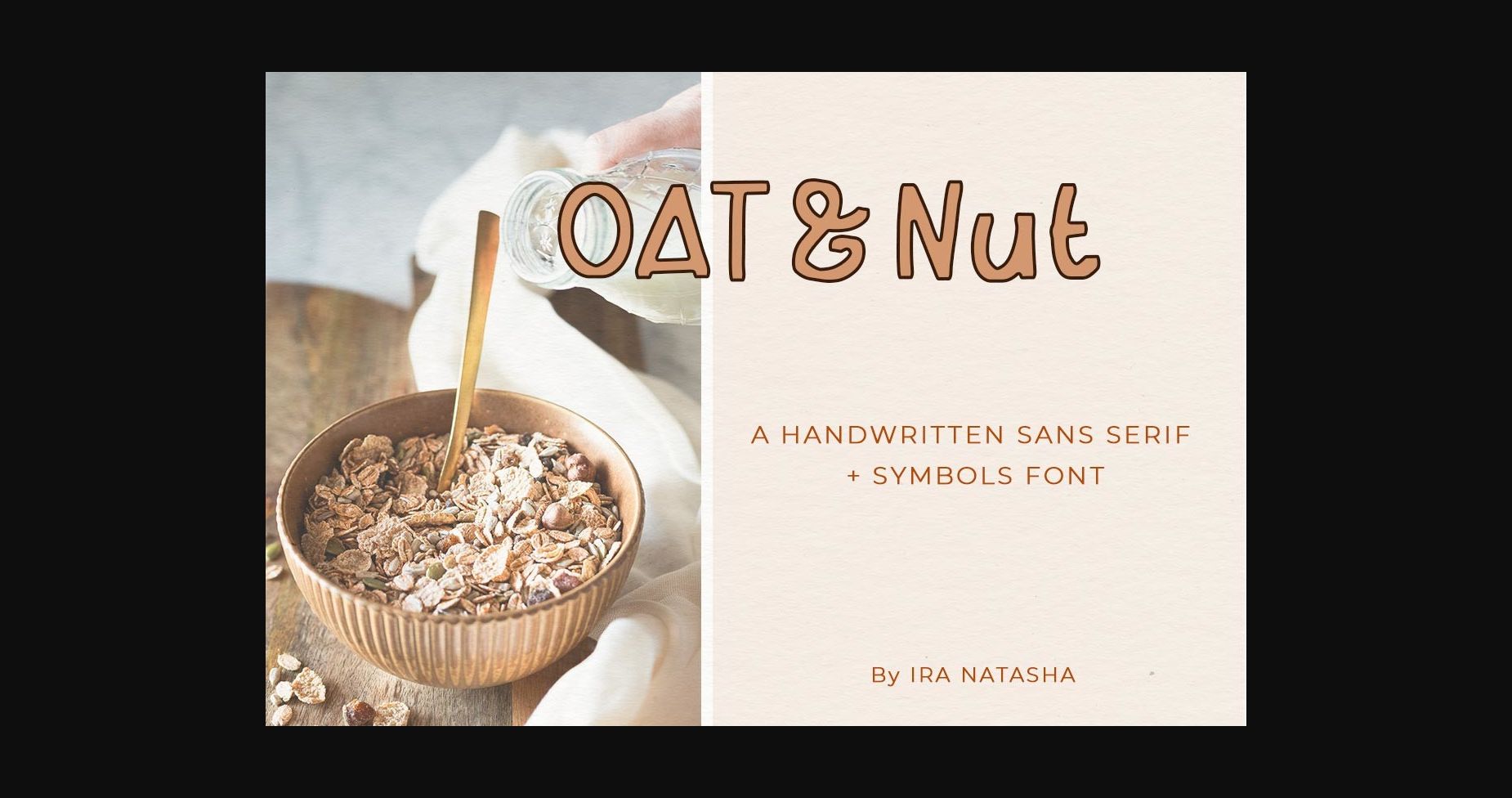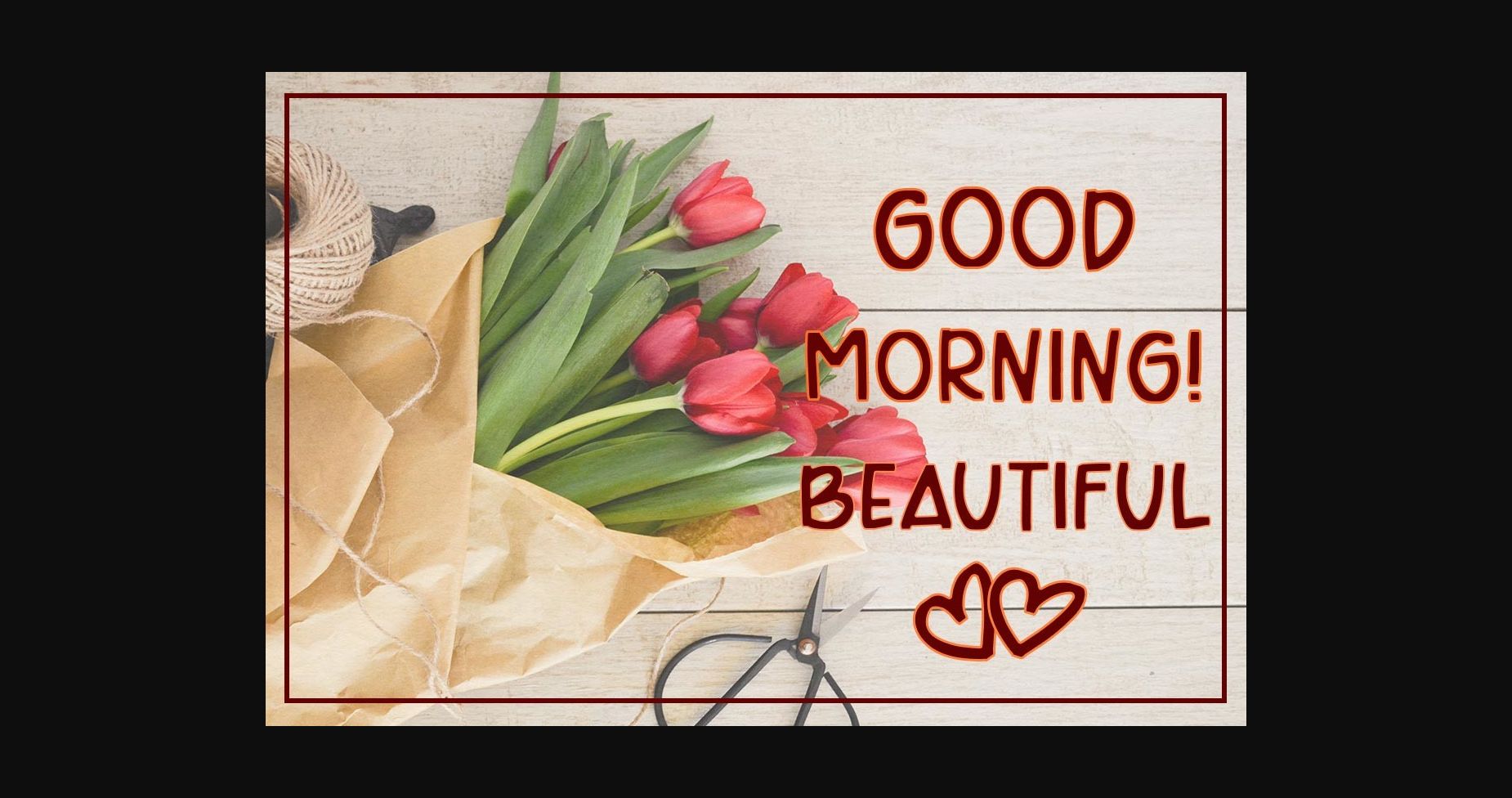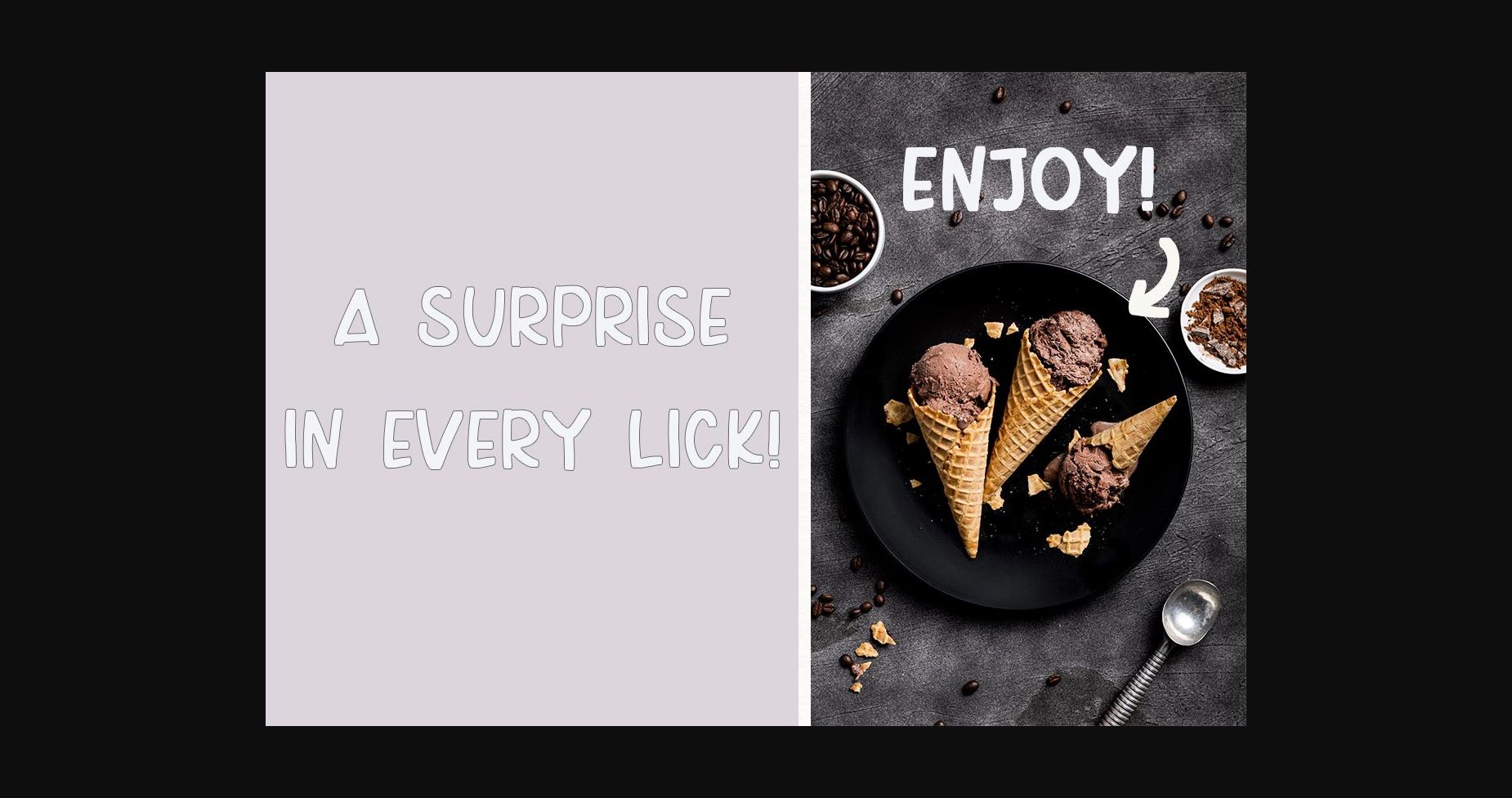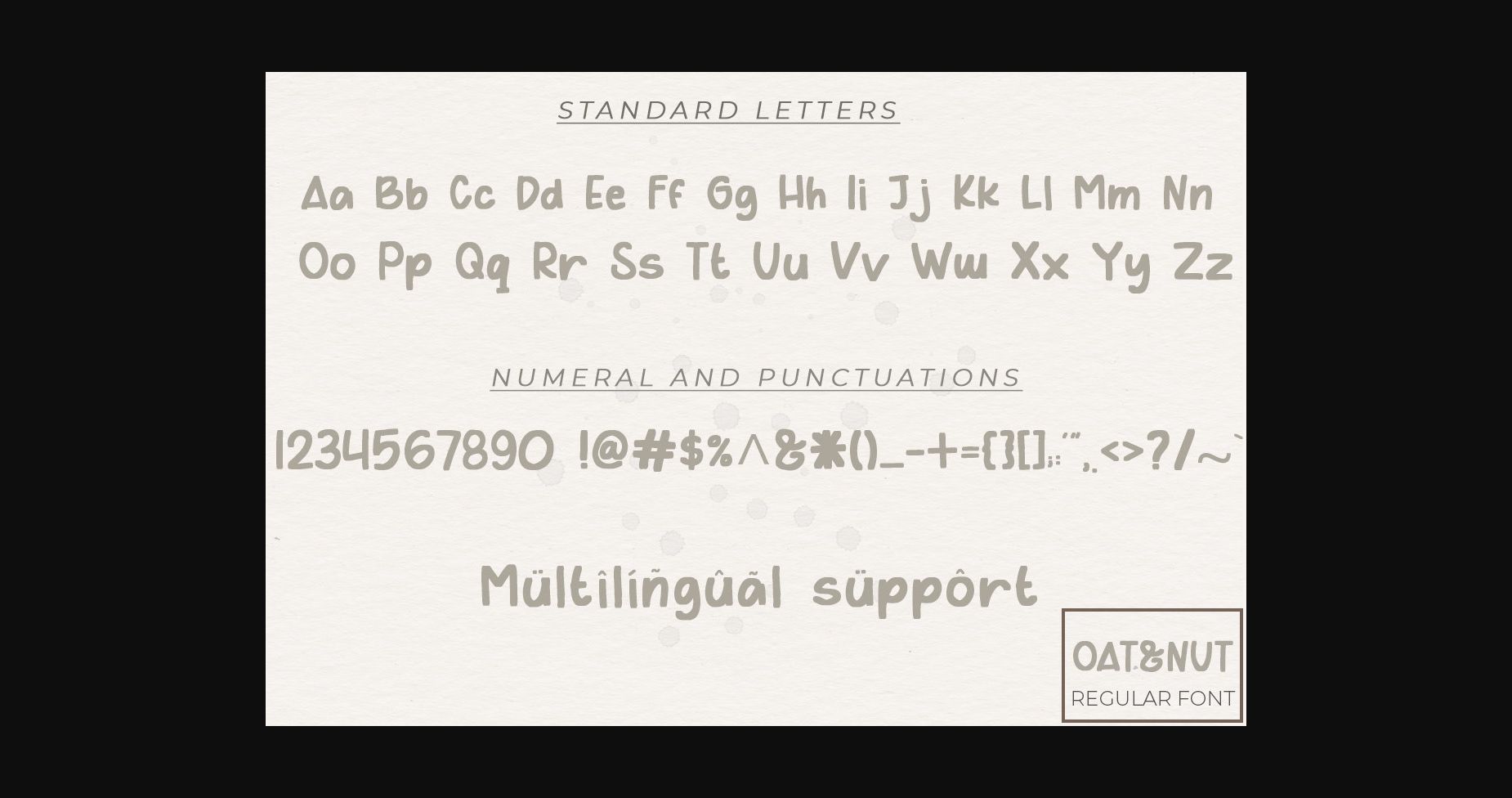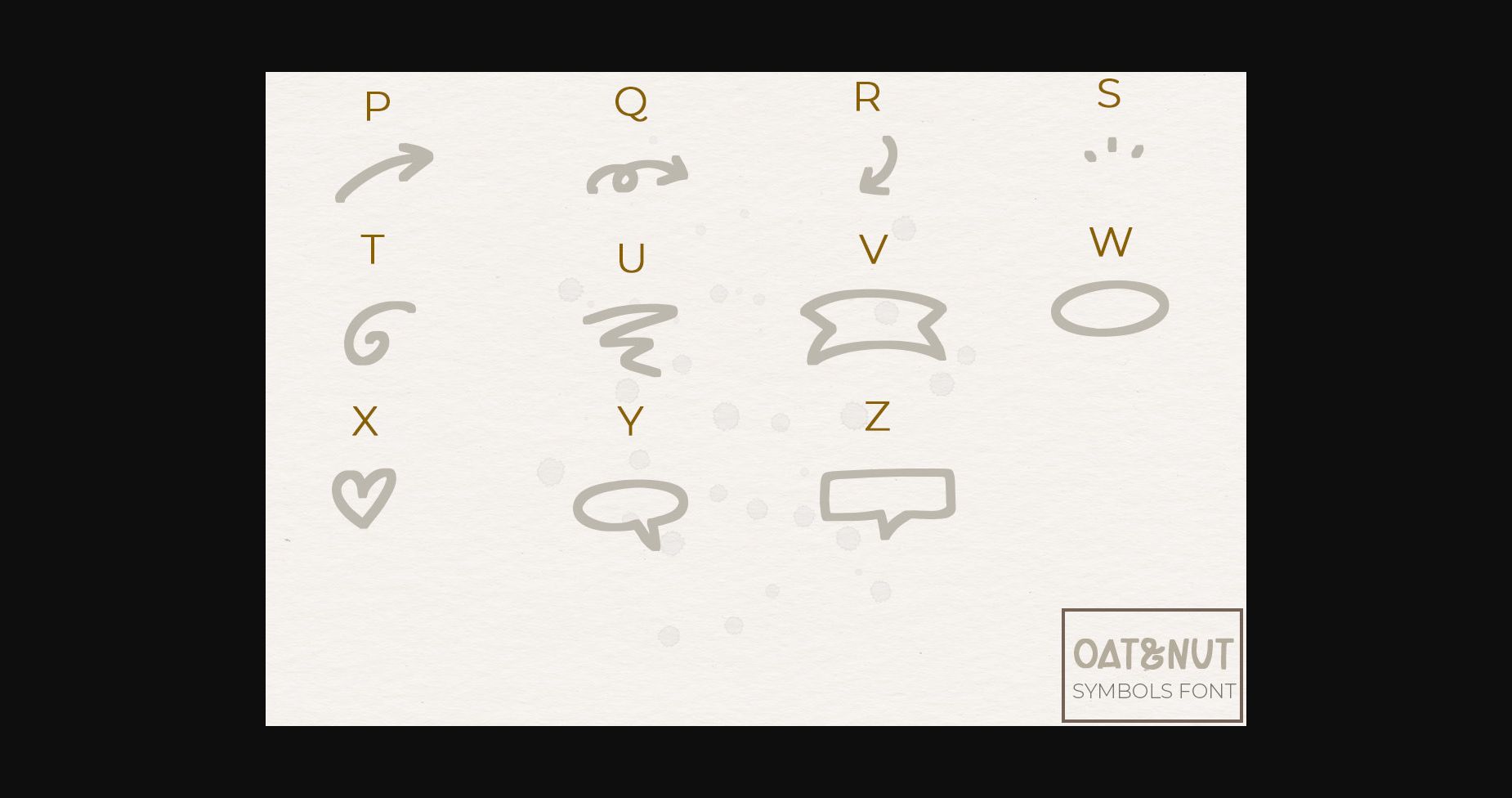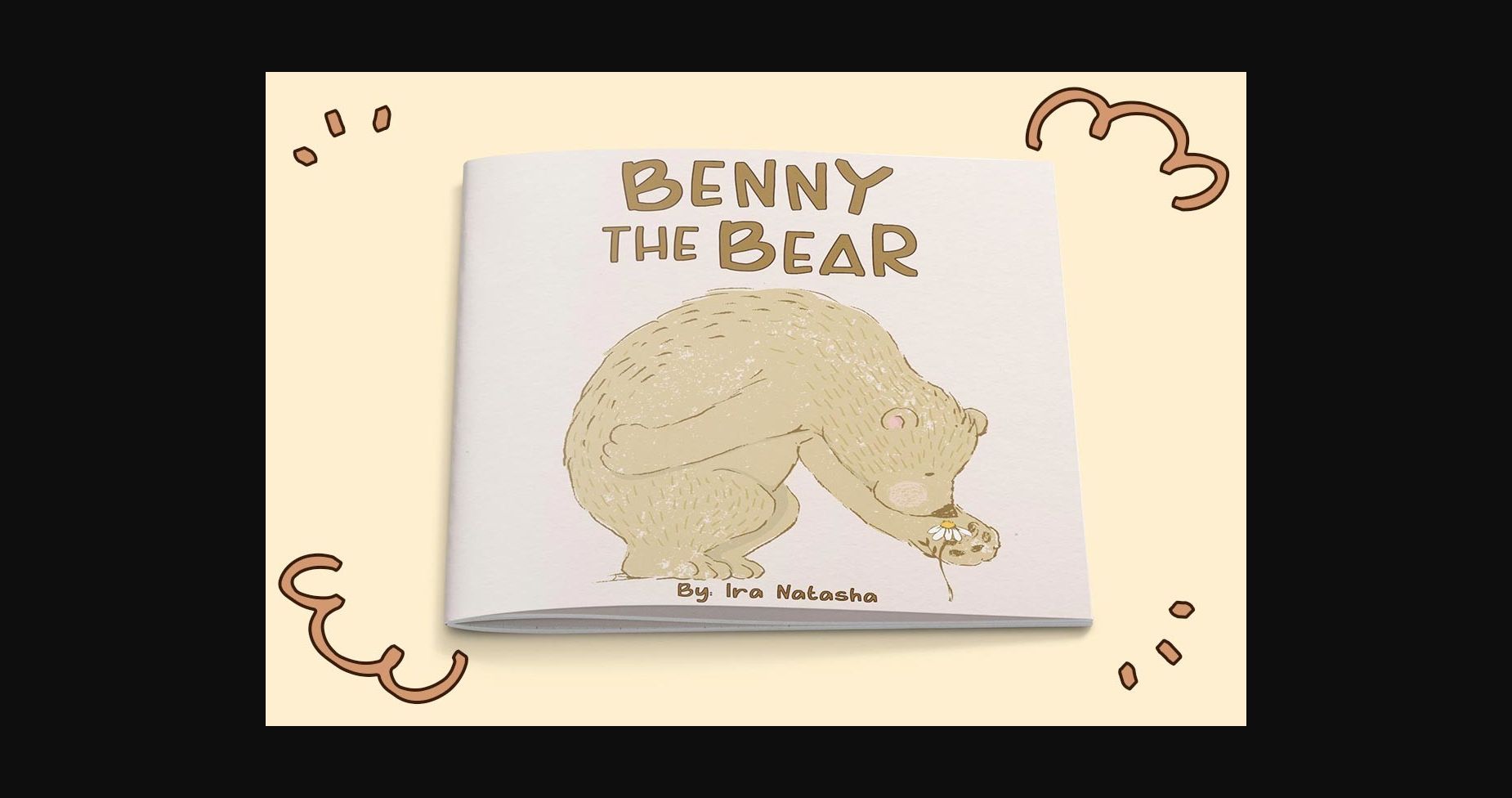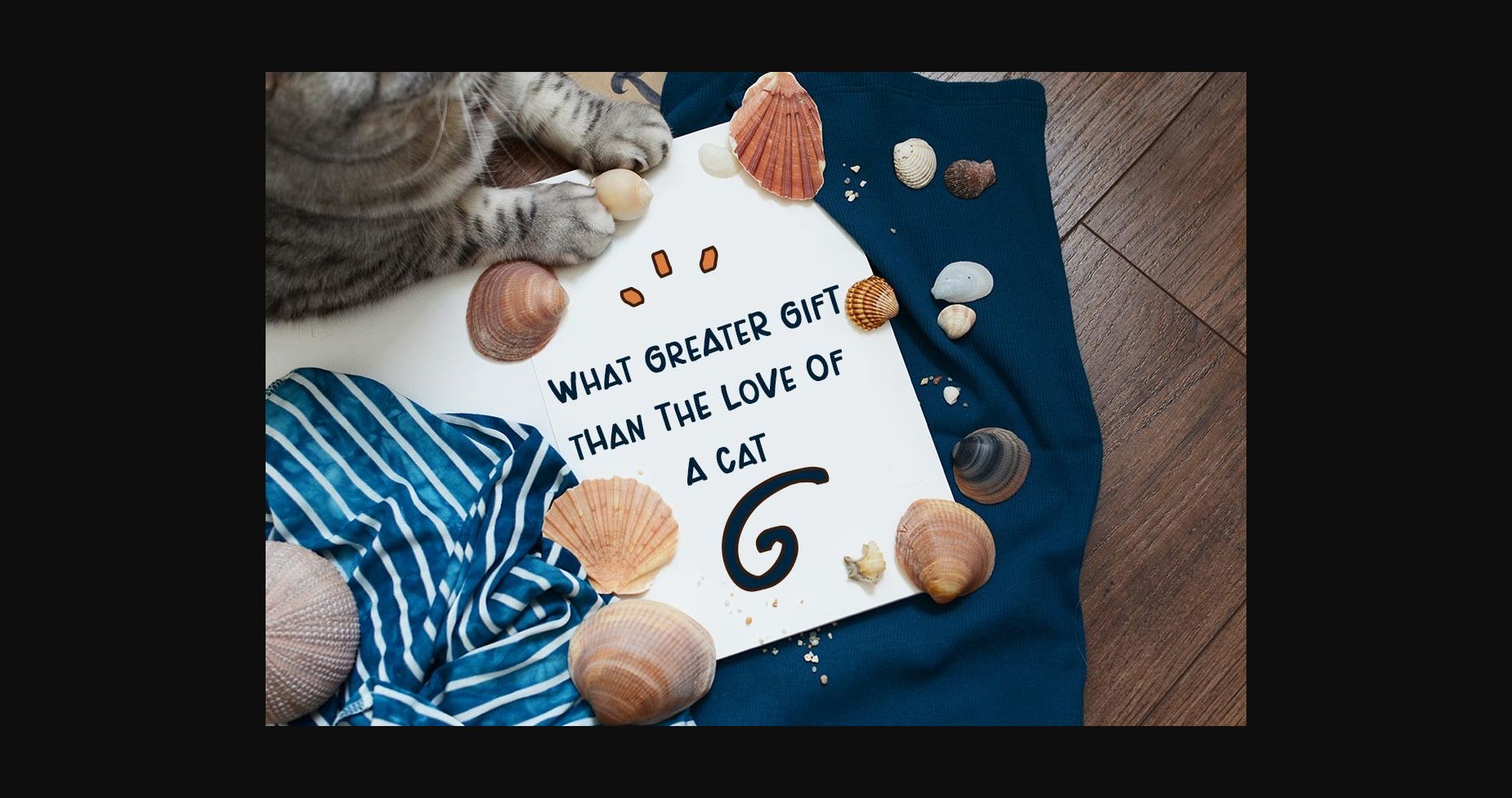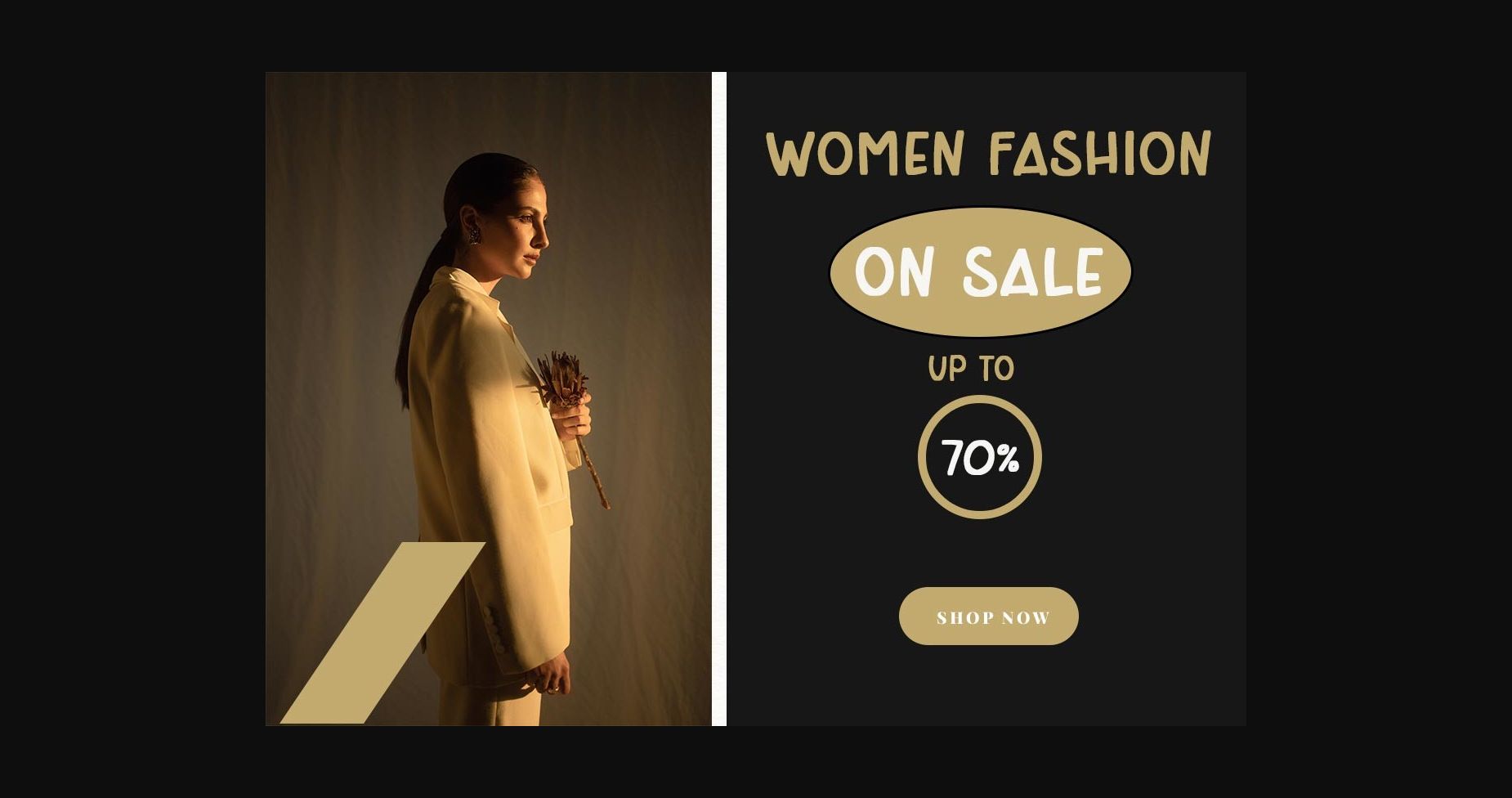
HomeSans Serif FontsOat & Nut Font Sans Serif Fonts Oat & Nut Font FacebookXPinterestWhatsApp 1 of 11 ... Oat & Nut Font Poster 2... Oat & Nut Font Poster 3... Oat & Nut Font Poster 4... Oat & Nut Font Poster 5... Oat & Nut Font Poster 6... Oat & Nut Font Poster 7... Oat & Nut Font Poster 8... Oat & Nut Font Poster 9... Oat & Nut Font Poster 10... Oat & Nut Font Poster 11... About Oat & Nut Font Oat & Nut font is an elegant and modern sans serif font. This minimalist and clean vibe can easily apply to your favorite designs such as book covers, magazines, social media posts, invitations, and so much more! DOWNLOAD NOW People also explored Venetian Entry Door | Poster Mockup Palmegria Font Witty Gemini Duo Font Plant Basket Font BBC Playland Font New Signatured Font Mata Emely Font Belagia Steppless Font 315 0 TagsOat & Nut Font Previous articleMillenium FontNext articleSpace Odyssey Font LEAVE A REPLY Cancel reply Comment: Please enter your comment! Name:* Please enter your name here Email:* You have entered an incorrect email address! Please enter your email address here Website: Save my name, email, and website in this browser for the next time I comment. Personal Use Free Concre Personal Use Free Read more about this font Calling Personal Use Free Read more about this font Term Free Personal Use Free Read more about this font Sunflower Personal Use Free Read more about this font BLOG Free vs Paid Fonts: Why Investing in Premium Fonts Is Worth It Free vs Paid Fonts: Why Premium Fonts Are Worth It in 2025 The debate of free vs paid fonts continues in the design world. While... How to Cut Any Font on Cricut: Convert a Font to SVG (Free) 5 Fonts That Will Dominate Design Trends in 2026 Fonts That Capture the Spirit of New York City